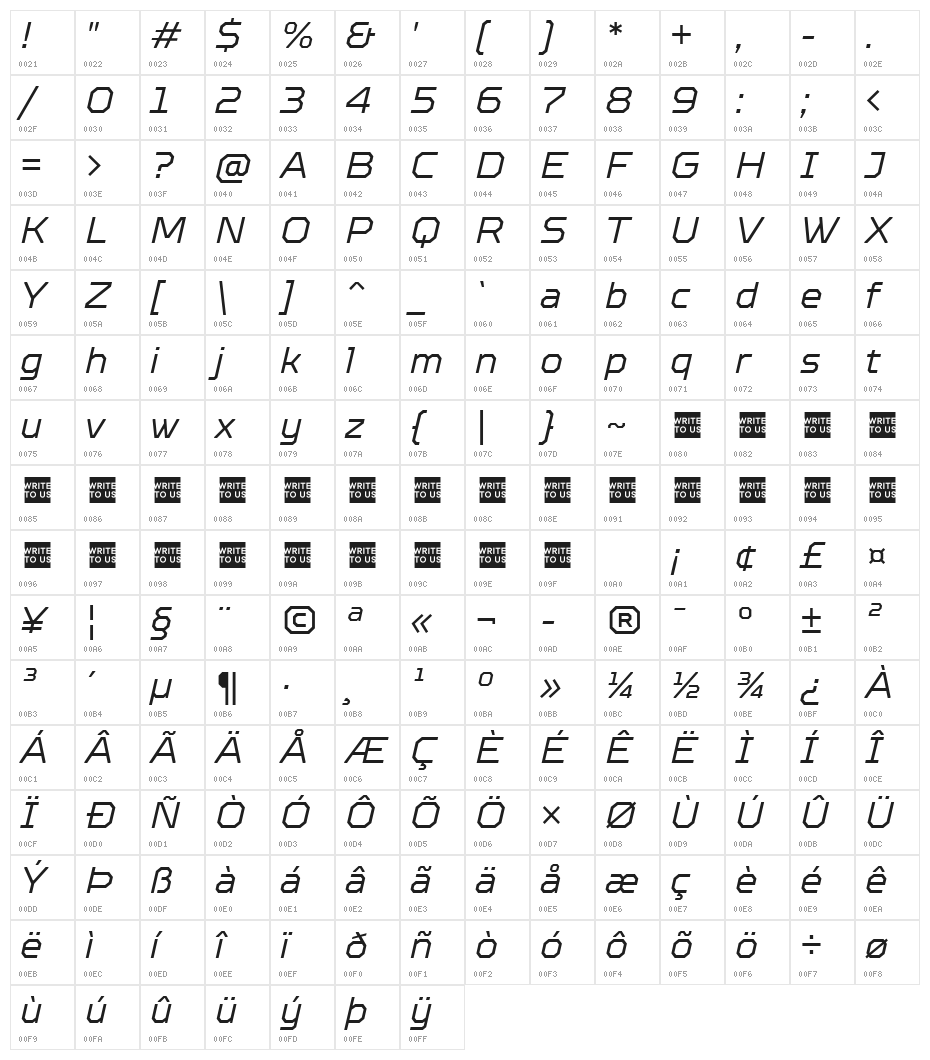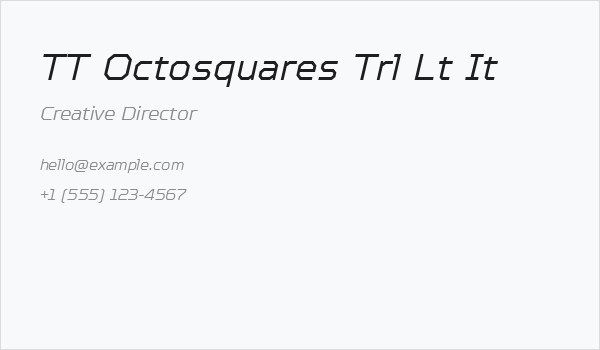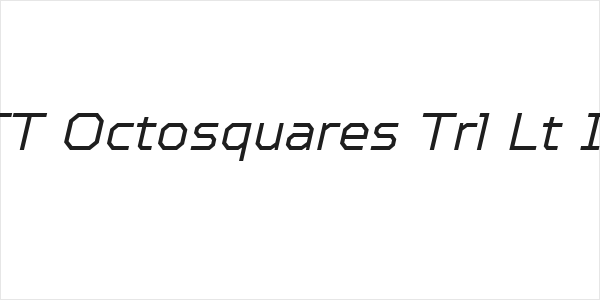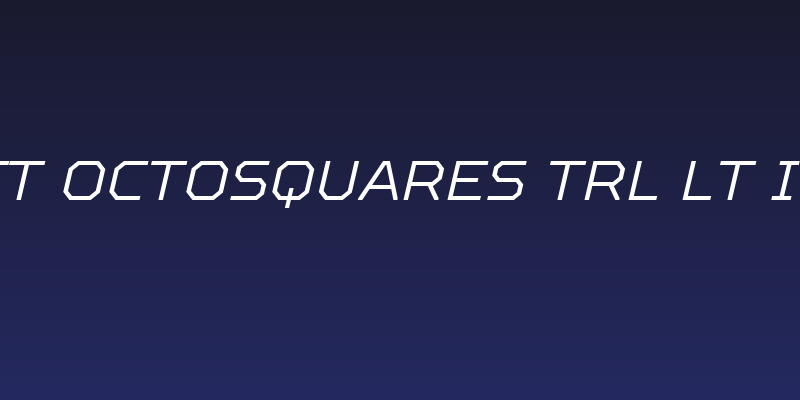
TT Octosquares Trl Lt It Font
TT Octosquares Trl Lt It Description
This typeface features a geometric and angular design, characterized by its distinct octagonal shapes. The letters are slightly slanted, giving it an italicized appearance, while maintaining a structured and modern look. The font has a technical and futuristic vibe, with clean lines and a uniform stroke width. The characters are well-defined, with a consistent height and width, creating a balanced and harmonious appearance. The numbers and special characters follow the same design principles, ensuring a cohesive look across all elements.
| Use Case | Logos, Headlines, Digital interfaces |
| Proposed Projects | Ideal for technology branding, modern posters, and digital interfaces. |